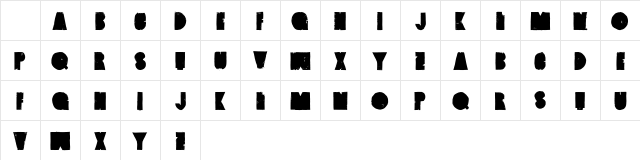
Vintage Denim wears its vintage influences proudly, with letterforms that recall mid-century signage, classic packaging, and nostalgia-driven design.
Font Pairing: Combine Vintage Denim with a simple slab or neutral sans - period-accurate companions reinforce the vintage feel without competing for attention.
Pro Tip: Lean into Vintage Denim's period character by pairing it with aged paper textures, muted colour palettes, and vintage illustration styles.